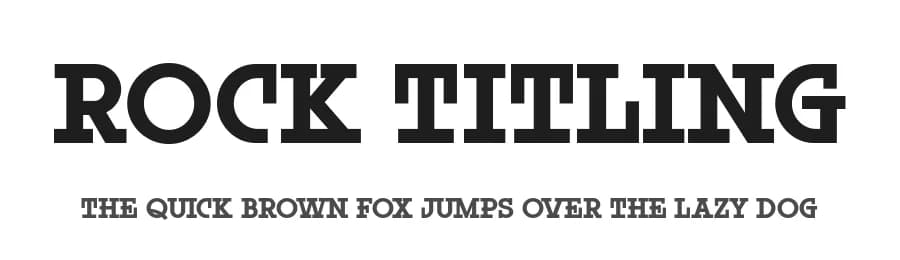
About Rock Titling Font
Rock Titling is an Egyptian-style typeface that playfully capitalises on elongated slab serifs to create a strong and compact look. It comes in three weights: Regular, Demibold and Bold.
By Claudio Rocha & Lucas Franco, 1998-2019.
Rock Titling Font
by NowType